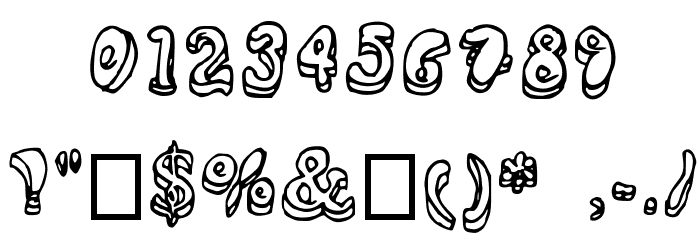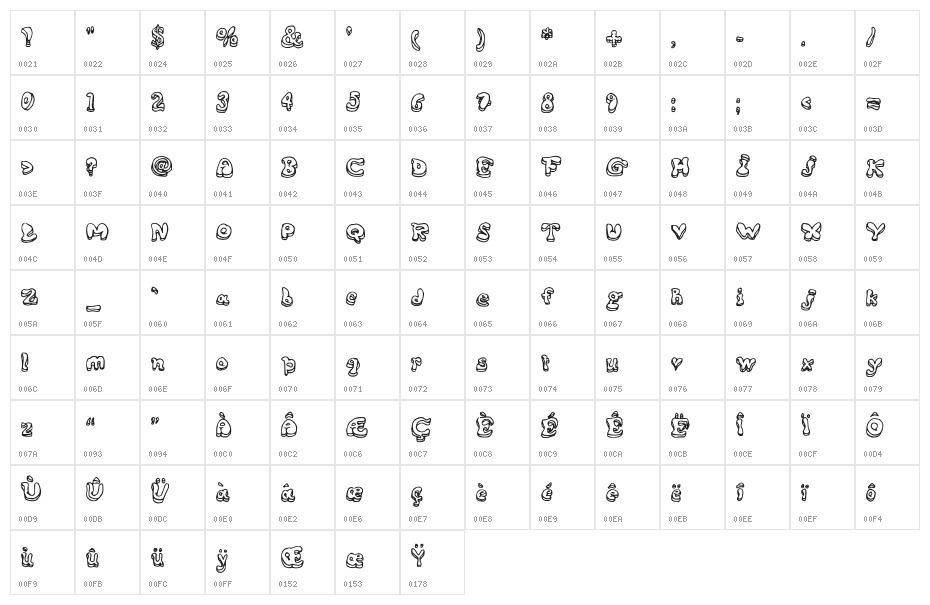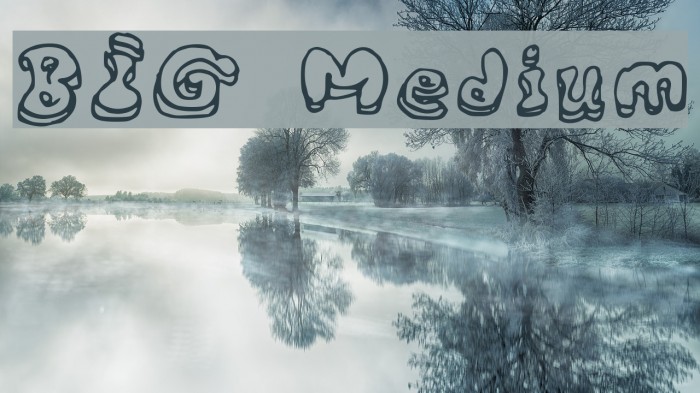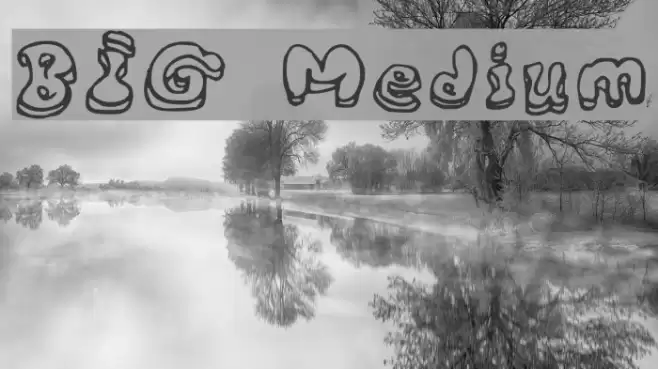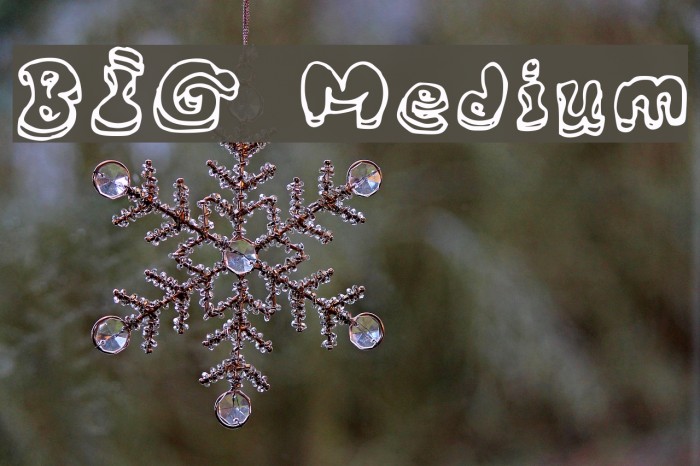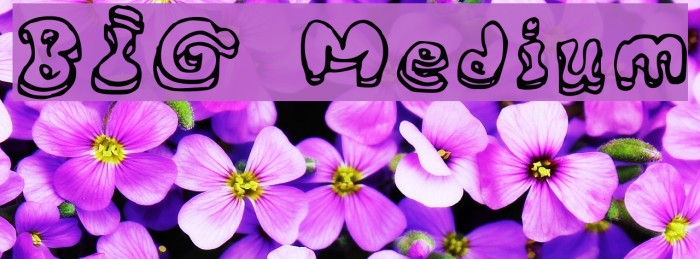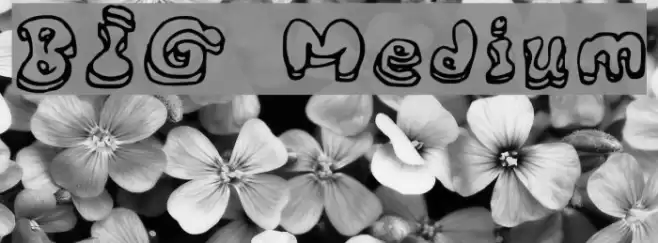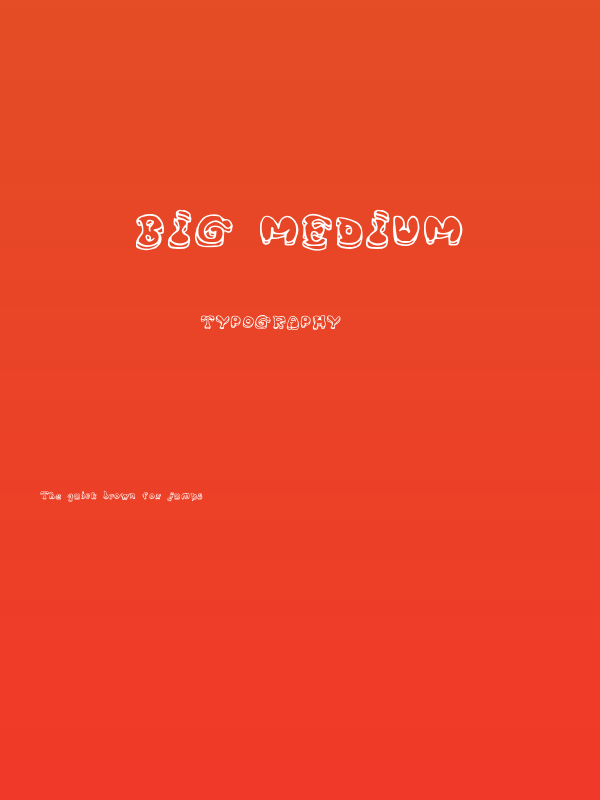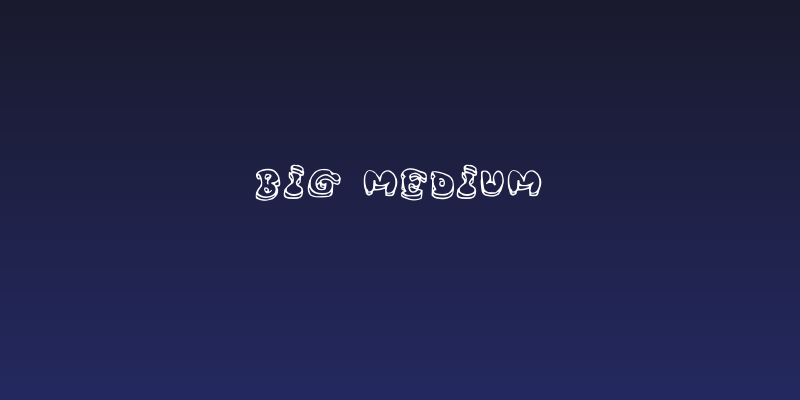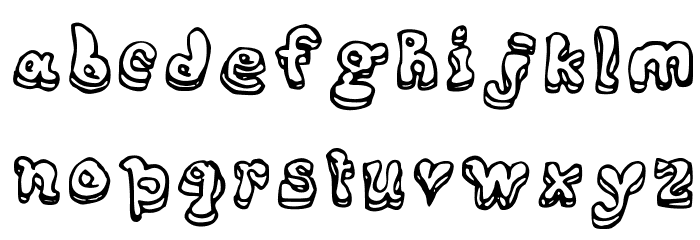
BIG Medium Font
BIG Medium Description
This playful and bold font features a unique bubble-like design with a thick outline, giving it a three-dimensional appearance. Each character is crafted with a whimsical touch, making it stand out with its rounded and exaggerated forms. The font maintains a consistent style across uppercase, lowercase, numbers, and special characters, ensuring a cohesive look. Its cartoonish and fun aesthetic makes it ideal for projects that require a lively and engaging visual appeal. The characters are well-spaced, allowing for readability while maintaining the font's distinctive style.
| Overall Style | Playful, Cartoonish |
| Proposed Projects | Ideal for children's books, comic strips, playful branding, and party invitations. |